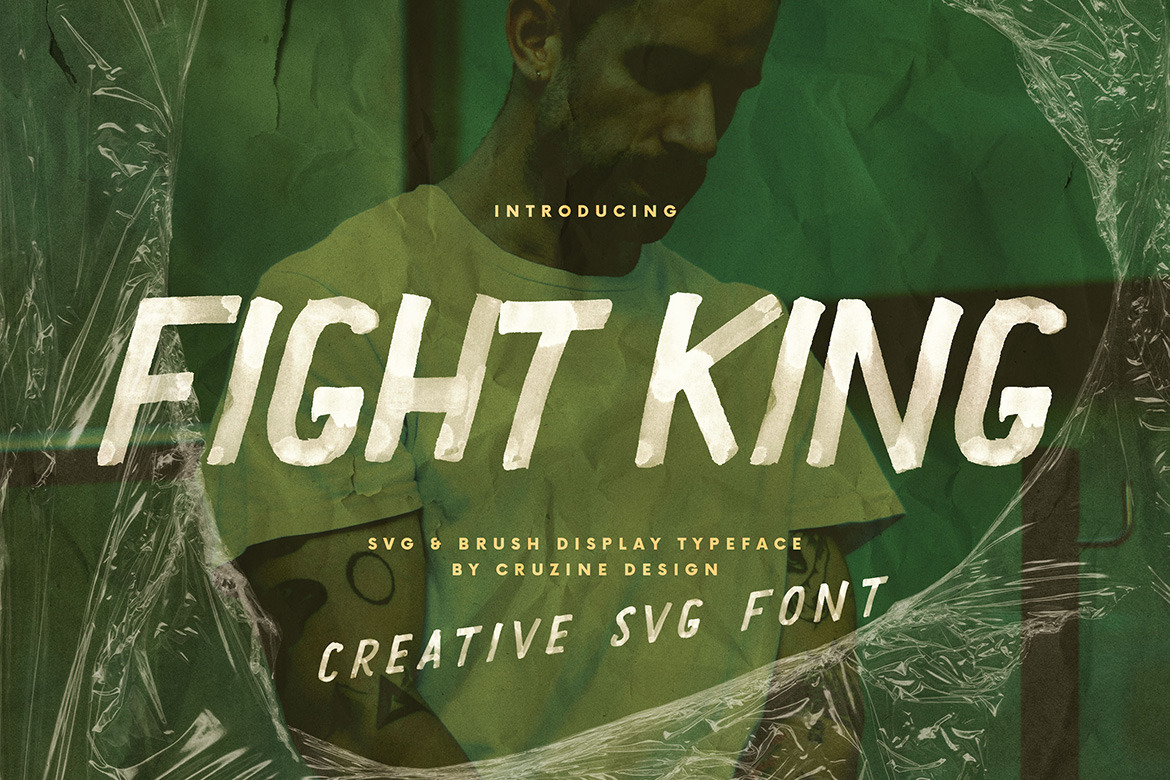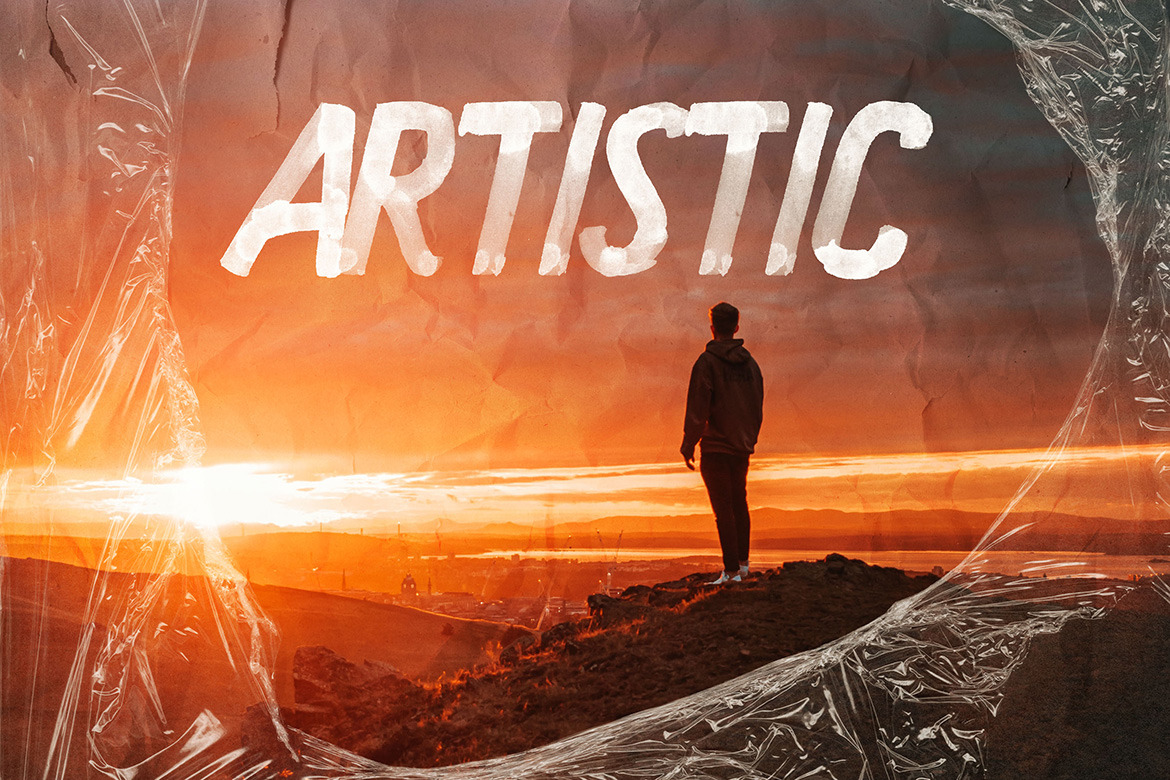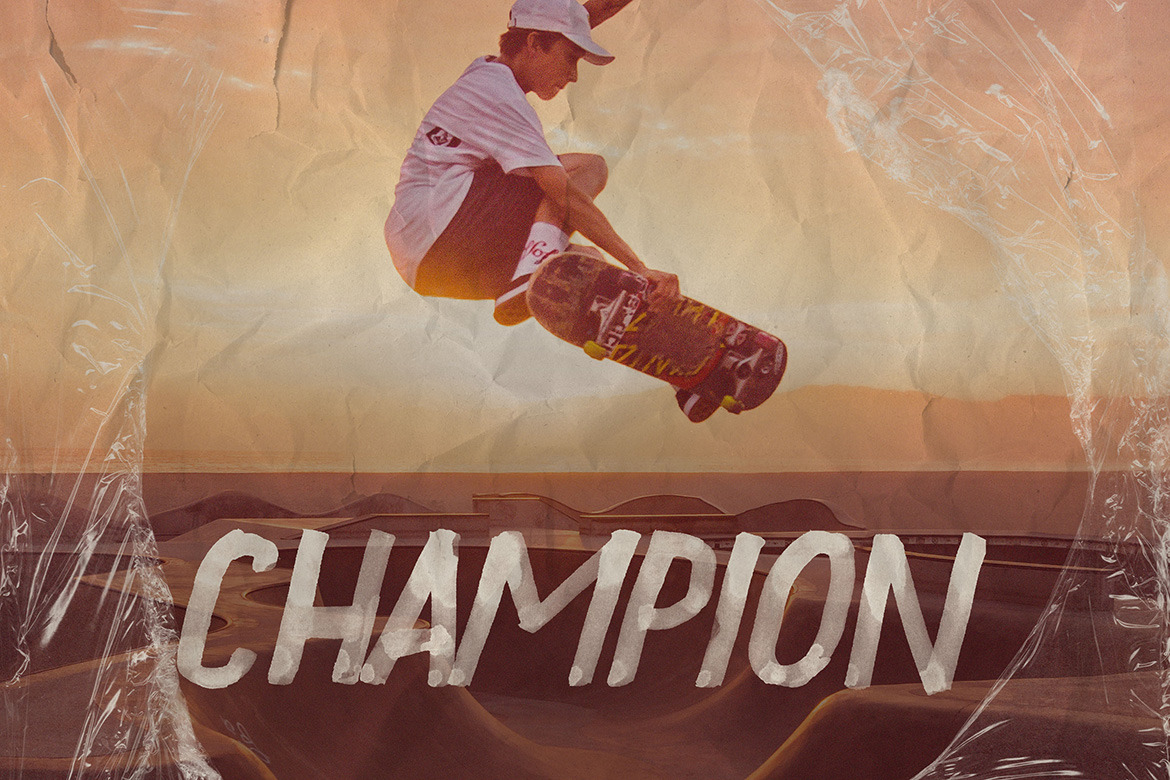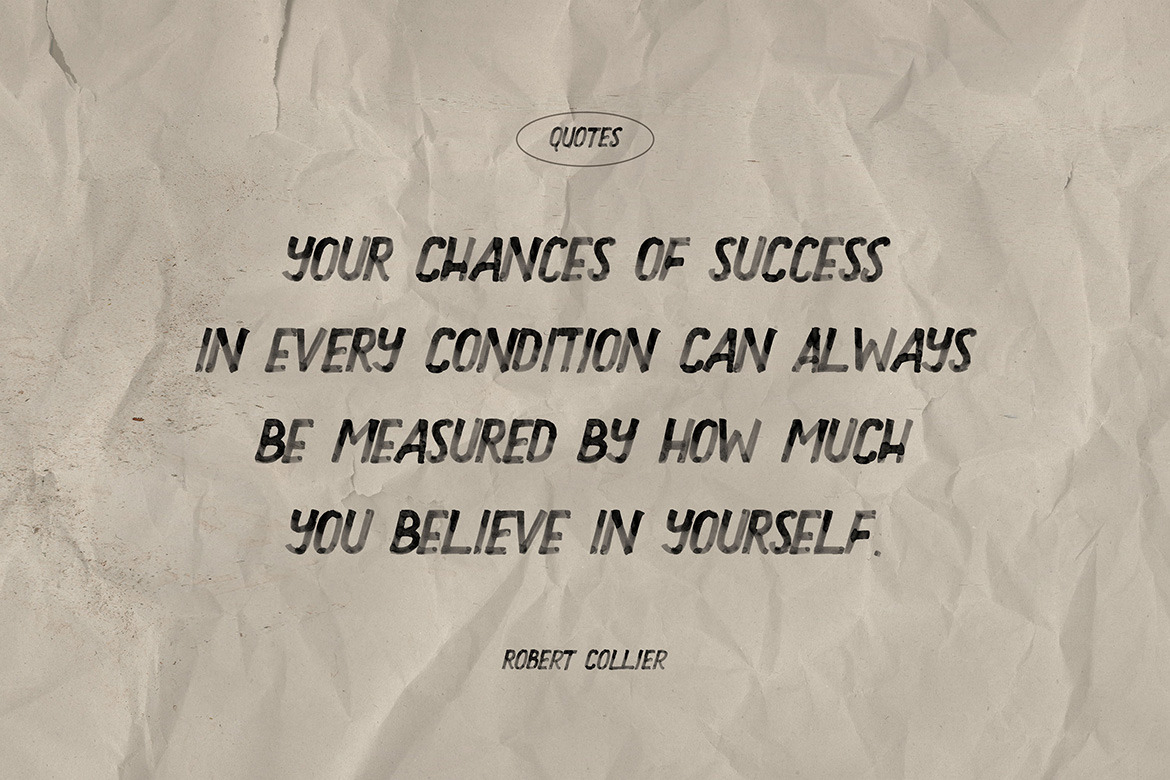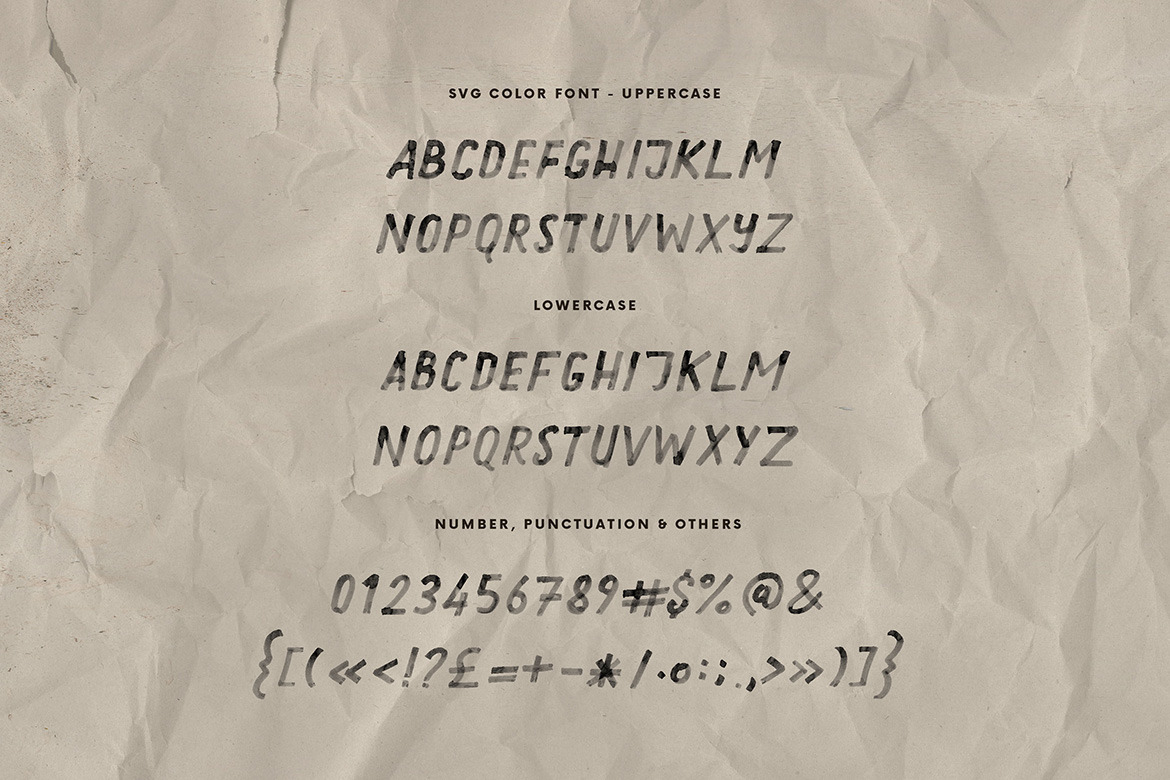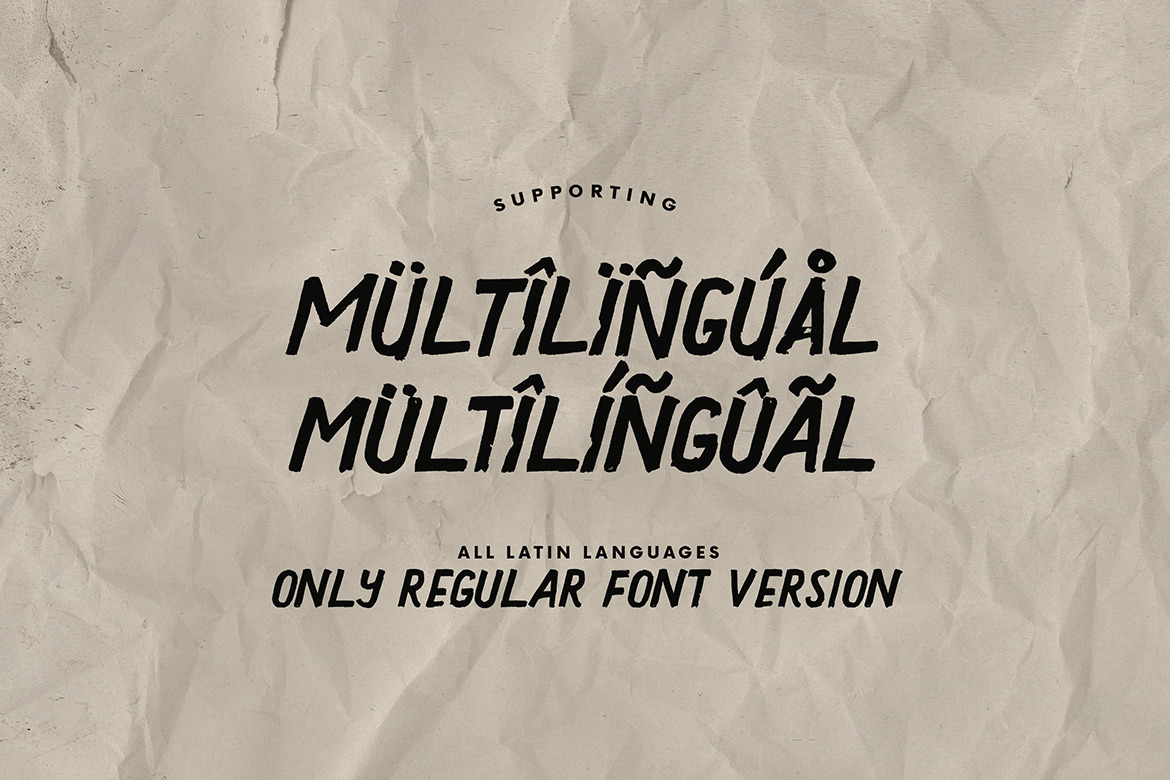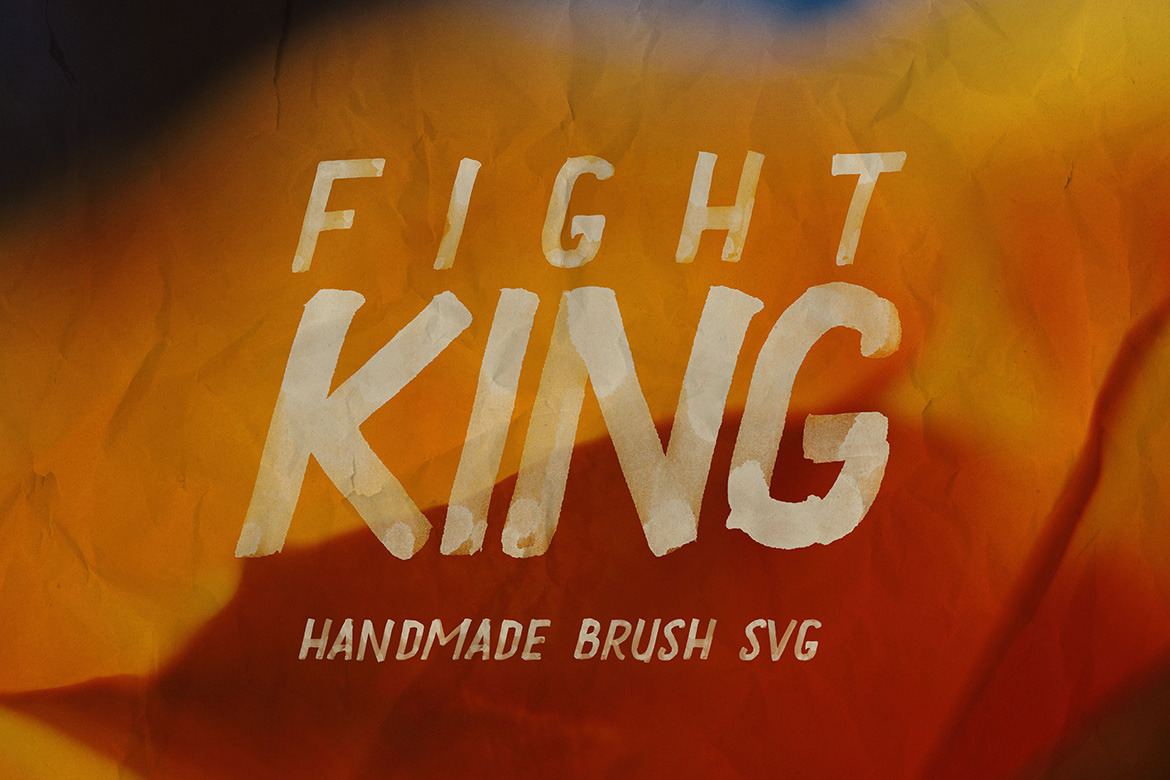
Fight King SVG Brush Font
Brush, rough or grunge style sans serif display font for your new projects. Handwritten with bold watercolor marker. Great for grunge, urban or artistic projects!